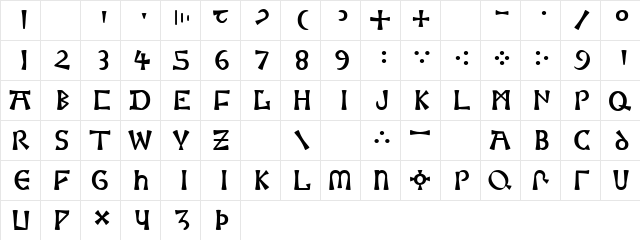
Moneta Regular
Designer: Edwin Hewitt
Design Context for Moneta
Moneta is a composed and adaptable typeface that performs quietly and consistently across a wide range of design contexts.